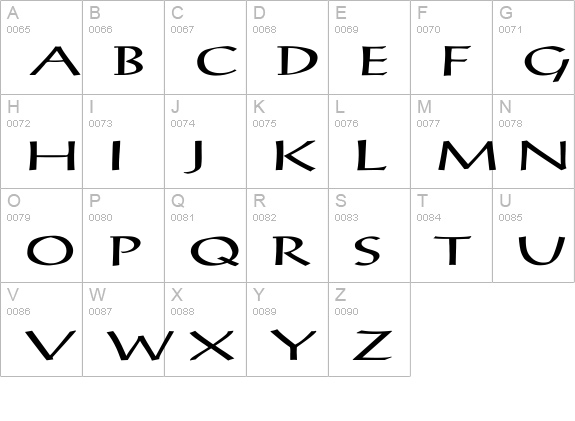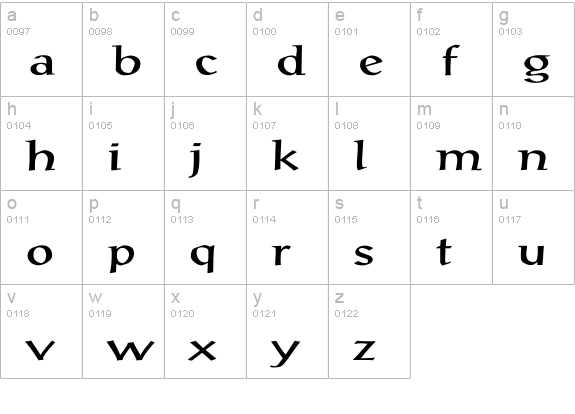
PostAntiqua-Roman Ex Font Details
PostAntiqua-Roman Ex is a timeless and elegant font that embodies the classical beauty of Roman typography. Its delicate serifs and balanced proportions make it a versatile choice for a wide range of design projects, from invitations to branding materials. With its graceful curves and refined letterforms, PostAntiqua-Roman Ex exudes sophistication and sophistication. Best of all, this exquisite font is available for free download at FontsMarket.com. Whether you're a designer looking to add a touch of luxury to your work or a writer seeking a font that conveys a sense of tradition and elegance, PostAntiqua-Roman Ex is the perfect choice. Download it today and elevate your designs with this stunning typeface.